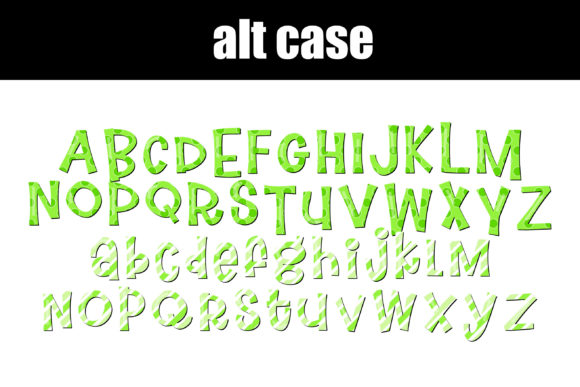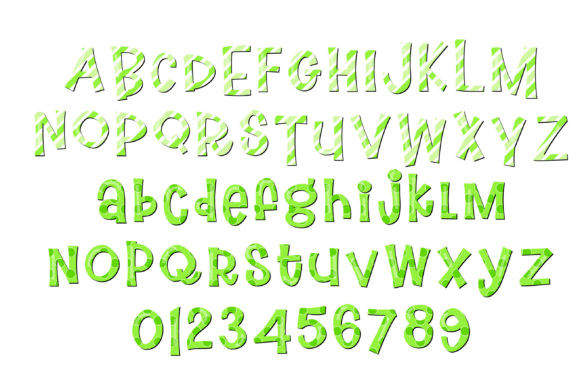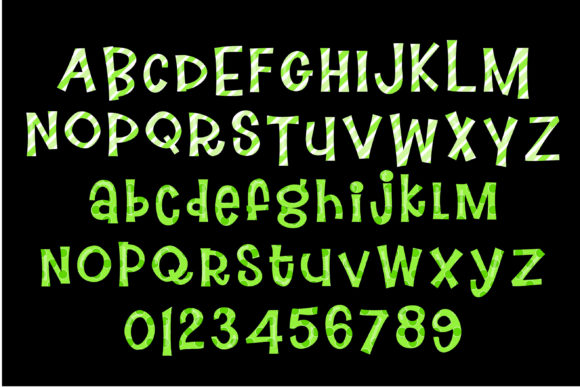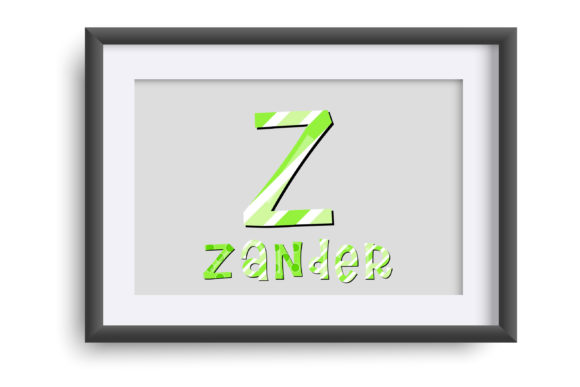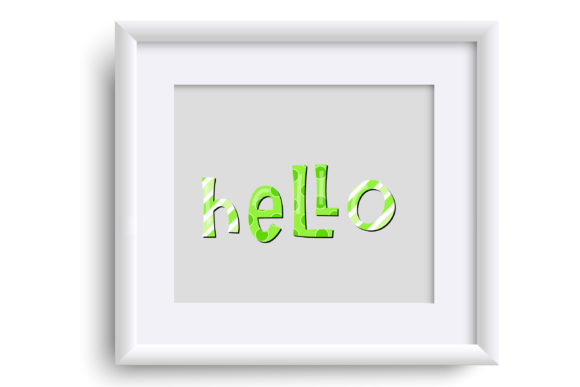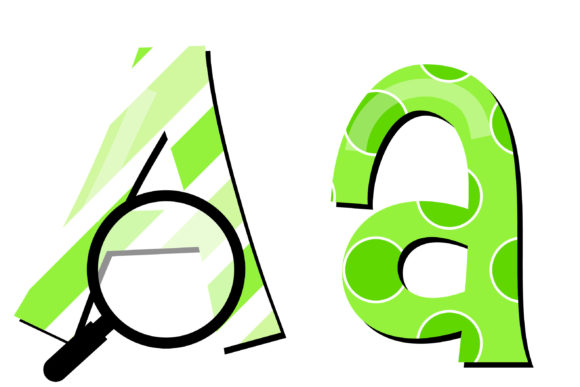
Introduction to Jolly Greens Font
This full-color font features whimsical lettering in a green color palette.
There are some fun ligatures like the double lโs to keep it creative A second upper and lower alt case you can access through your systemโs character map.